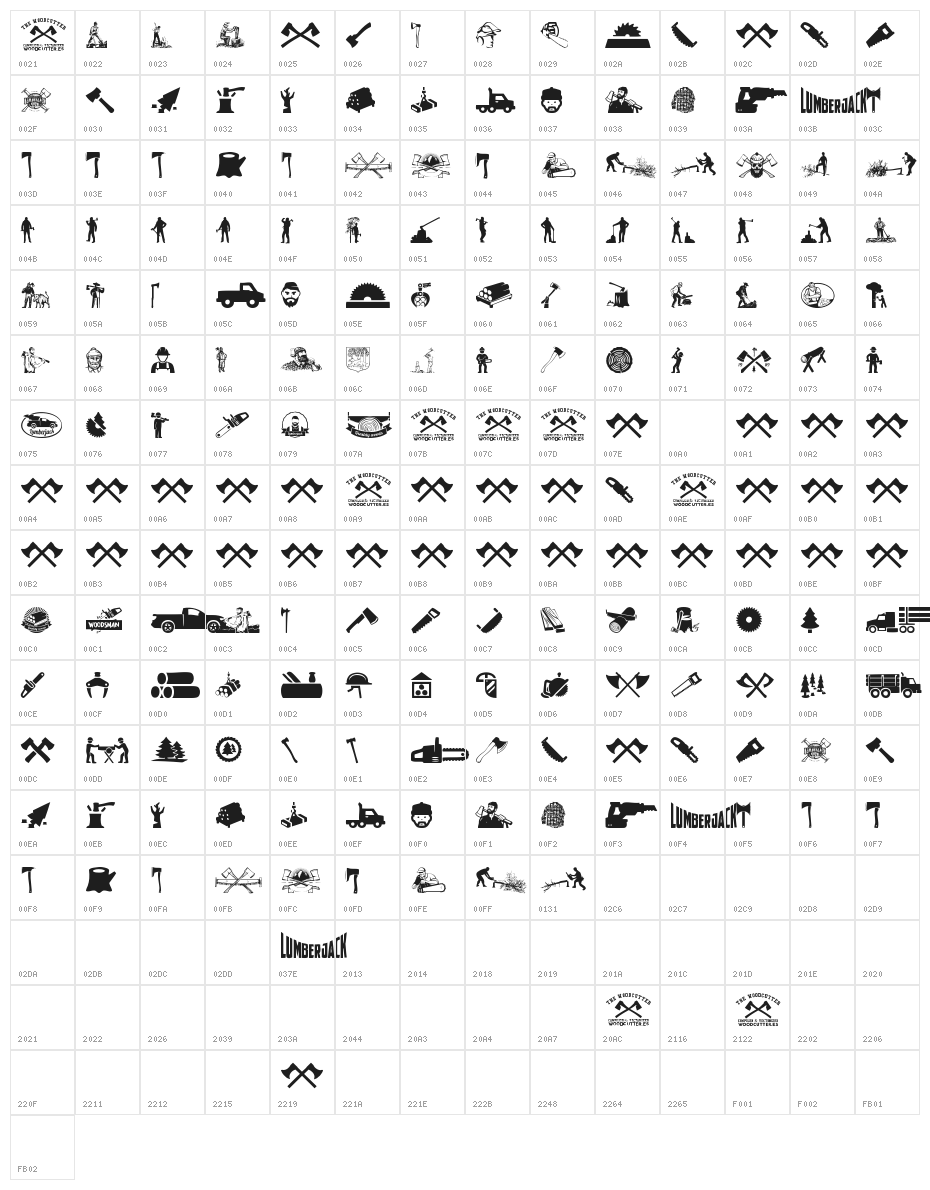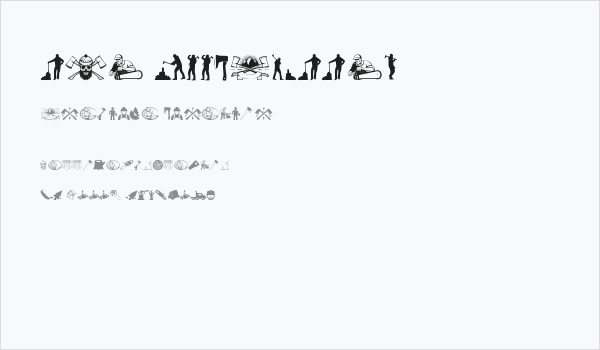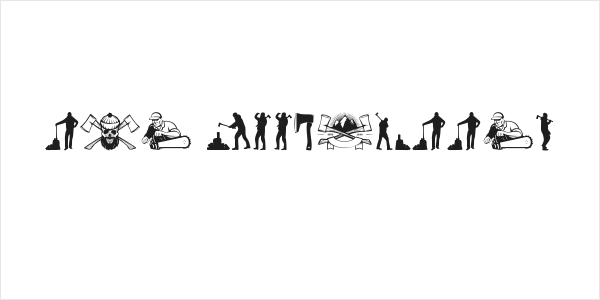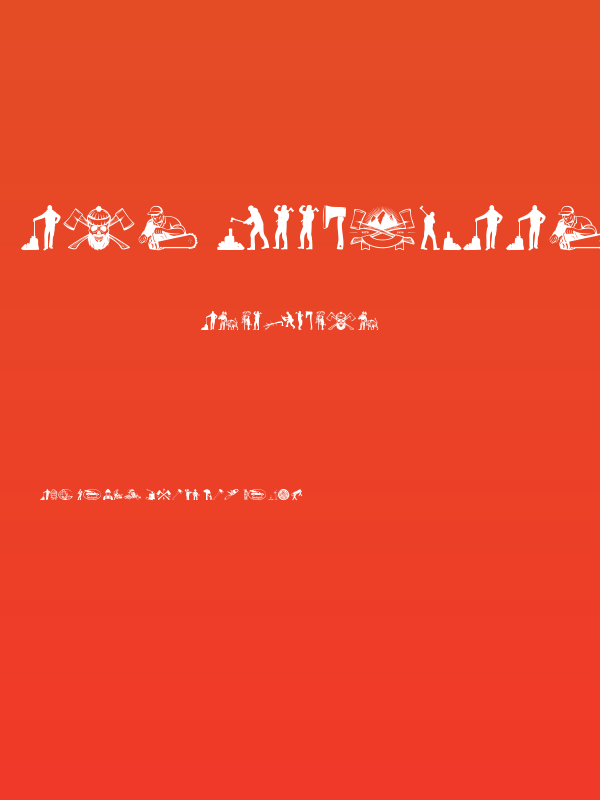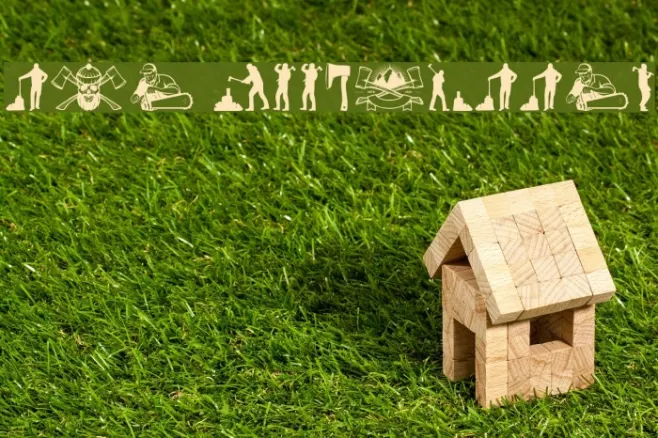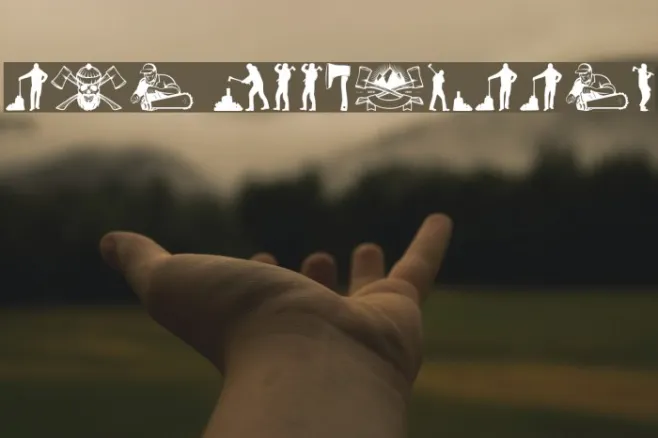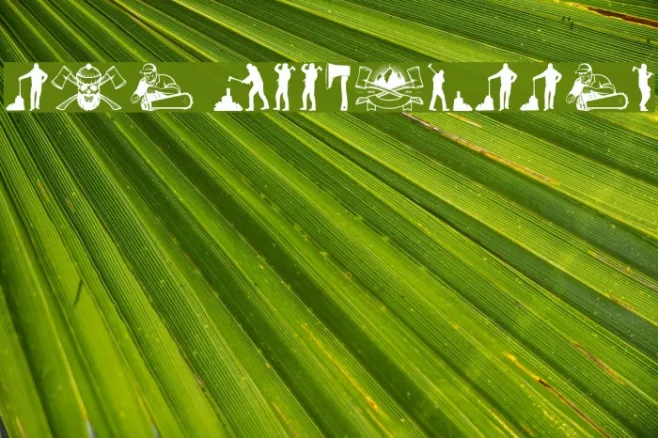
THE WOODCUTTER Font
THE WOODCUTTER Description
A decorative display font composed entirely of lumberjack and woodcutting-themed pictograms, including silhouettes of people, axes, saws, trees, logs, trucks, and related tools. Each character is represented by a unique, detailed black-and-white illustration, making the font highly thematic and illustrative.
| Overall Style | Decorative, Thematic, Illustrative |
| Use Case | Logos, Posters, Themed Headlines, Branding |
| Proposed Projects | Branding for wood-related businesses, event posters, themed signage, children’s books, educational materials, and logo design. |